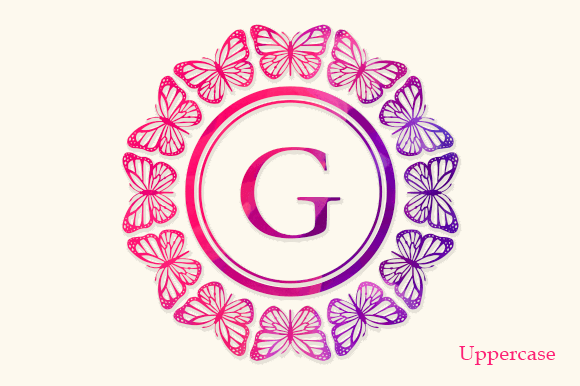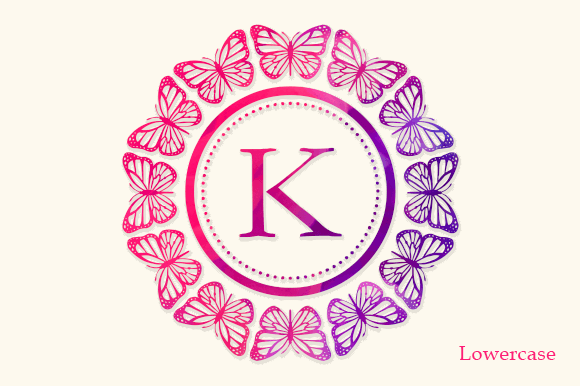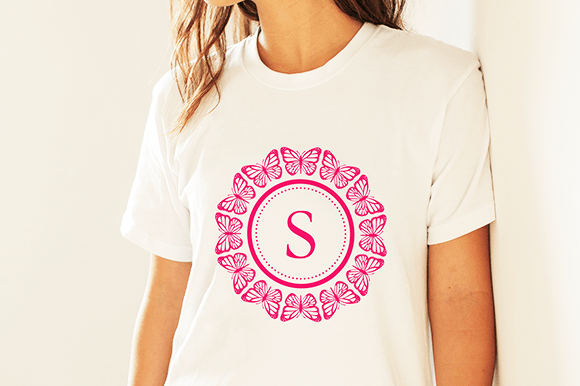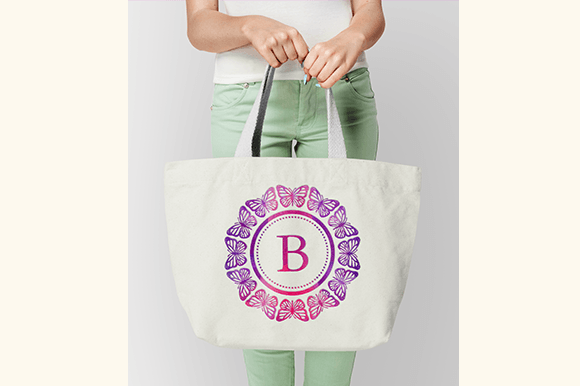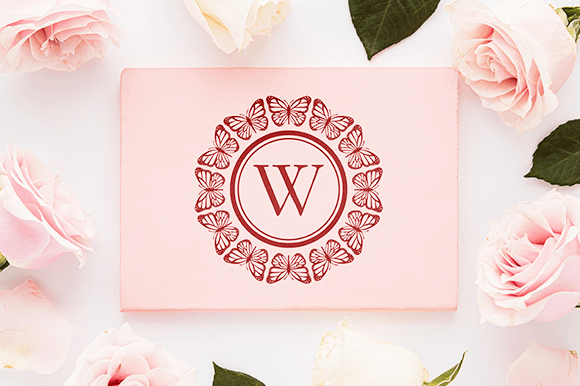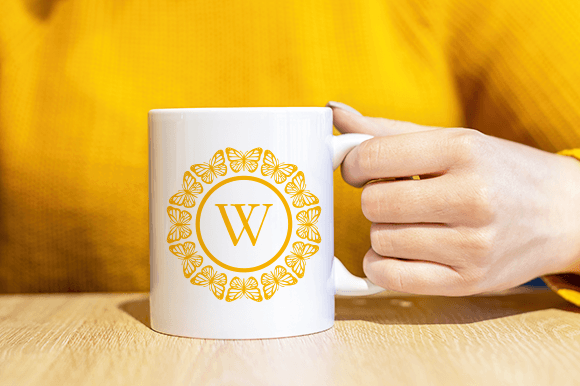
Introduction to Morphosa Monogram Font
You know that moment when you’re brainstorming ideas for your next creative project and the perfect font pops into your mind? That’s exactly what happens when you discover the Morphosa Monogram Font. Its elegant, ornate design makes it the perfect addition to any project that needs a touch of sophistication. Whether you’re designing a wedding invitation, a social media post, or a greeting card, this beautiful font is sure to make your design stand out.
As a designer, you know how valuable it is to have access to high-quality design resources like the Morphosa Monogram Font. Not only does it offer a unique and authentic feel, but it’s also incredibly versatile, making it perfect for a wide range of creative projects. Plus, with a transparent background, you can easily layer it over other design elements to create a truly stunning visual effect. And the best part? It’s available for free download, making it an absolute must-have for any designer’s toolkit.
Key Features of Morphosa Monogram Font
- High-quality design resource ideal for creative projects, offering a unique and stylish touch.
- Includes a set of monogram templates with transparent backgrounds, allowing for easy customization and composition.
- Designed with a modern and elegant aesthetic, making it perfect for a wide range of applications, from branding to digital art.
- Part of a growing collection of high-quality design resources, suitable for any creative project that demands a professional look.
Honest Review: Morphosa Monogram Font
I recently had the chance to work with the Morphosa Monogram Font, and I must say, it’s been a game-changer for my design projects. The font is part of a high-quality design resource that I’ve been using for my creative projects, and it’s always a pleasure to work with.
- ✨ Beautifully designed monograms that can be customized to fit any project
- ✨ Transparent background option for seamless integration with any design
- ⚠️ Limited font sizes available, which may require some extra work to customize
Overall, I’m really impressed with the Morphosa Monogram Font. It’s a high-quality resource that’s perfect for any design project. The transparent background option and free download make it a great choice for designers on a budget. While there are a few limitations, I think it’s well worth the extra effort to customize it to fit your needs.
How to Use Morphosa Monogram Font
The Morphosa Monogram Font is a high-quality design resource ideal for creative projects. It offers a unique and elegant style that can elevate your designs to the next level.
Tips for Getting the Most Out of Morphosa Monogram Font
For best results, use the Morphosa Monogram Font on a transparent background to showcase its elegant design. You can also experiment with different font sizes and styles to create a unique look.
The Morphosa Monogram Font is ideal for use in wedding invitations, branding, and other creative projects where a high-quality and elegant font is required. It’s also available for free download, making it a great resource for designers on a budget.